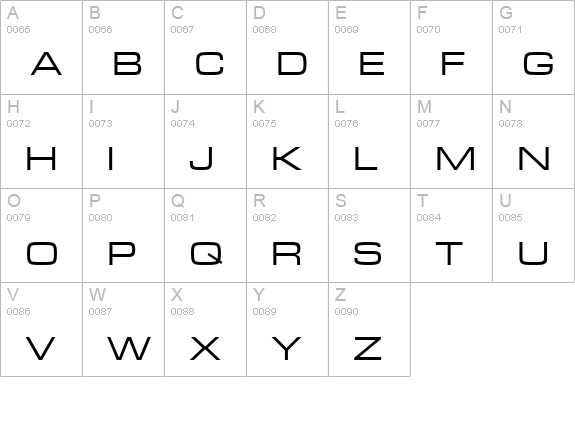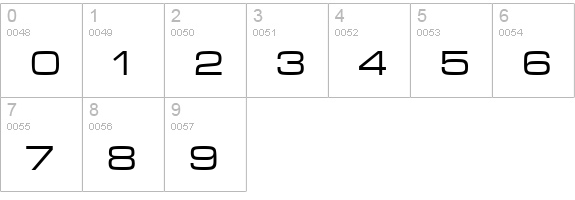
Microstyle Extended ATT is a distinctive, extended-width variant in the Microstyle typeface family \xE2\x80\x94 well suited to design and typography projects.
Microstyle Extended ATT is a sleek and modern font that exudes sophistication and elegance. With its clean lines and contemporary style, this font is perfect for creating professional and visually striking designs. The extended character set of Microstyle Extended ATT provides versatility and flexibility for various design projects. What sets Microstyle Extended ATT apart is its bold and eye-catching appearance, making it ideal for headlines, titles, and branding materials. The font's extended features allow for seamless integration into a wide range of design applications, from print to digital media. Best of all, Microstyle Extended ATT is available for free download at FontsMarket.com. This means you can easily access this high-quality font without any cost, making it a valuable addition to your design toolkit. Download Microstyle Extended ATT today and take your designs to the next level with its modern and stylish aesthetic.